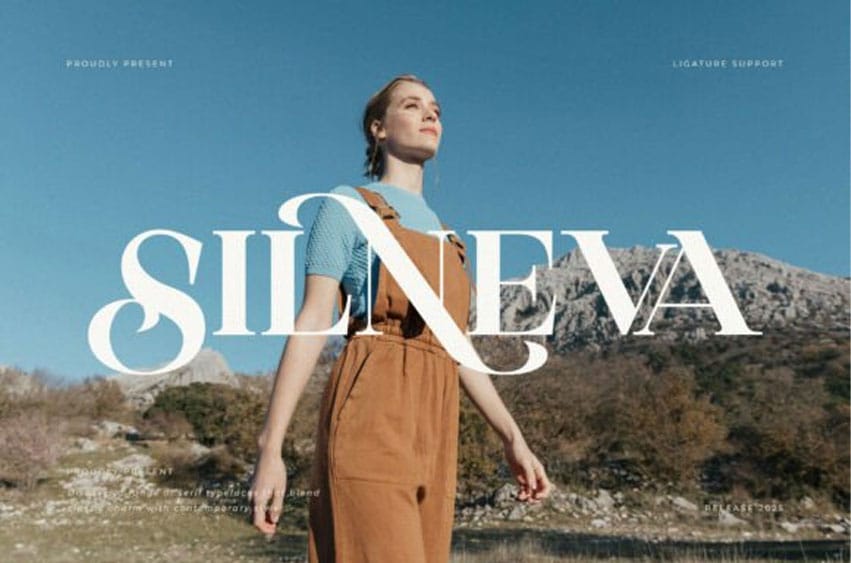
Silneva Font is a beautifully crafted, elegant display serif font, designed to exude sophistication and timeless charm. With graceful curves, delicate serifs, and refined proportions, Silneva adds a luxurious touch to branding, invitations, magazine titles, and upscale packaging.
Its classic elegance makes it perfect for designs that require both beauty and professionalism in equal measure.